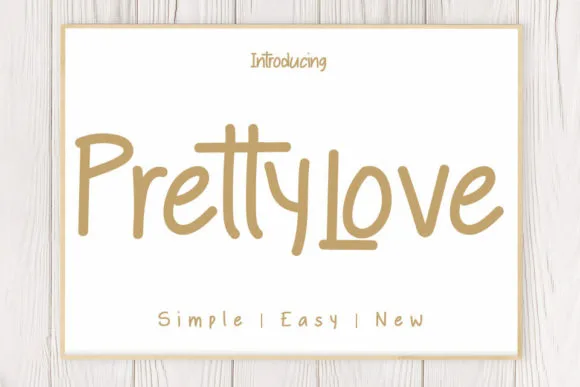
Pretty Love Font
About Pretty Love Font
Introducing “Pretty Love,” a cute and natural handwritten font designed to bring a clean and friendly vibe to your creations. With its charming and approachable style, Pretty Love is perfect for a wide range of casual and informal projects, allowing you to express yourself with ease and creativity.
Whether you’re designing greeting cards, social media posts, invitations, or any other project that requires a touch of warmth and personality, Pretty Love offers endless possibilities. Its versatility and clean design make it suitable for a variety of applications, allowing you to unleash your creativity without limits.
Experience the beauty and versatility of Pretty Love and watch as it transforms your designs into delightful creations. Whether you’re a professional designer or a passionate enthusiast, this font invites you to explore new possibilities and express yourself with confidence and style.
Unlock the full potential of your designs with Pretty Love and let its cute and natural handwritten font elevate your projects to new heights. With its friendly vibe and limitless options, Pretty Love is sure to become a beloved addition to your design toolkit, inspiring creativity and joy with every use.